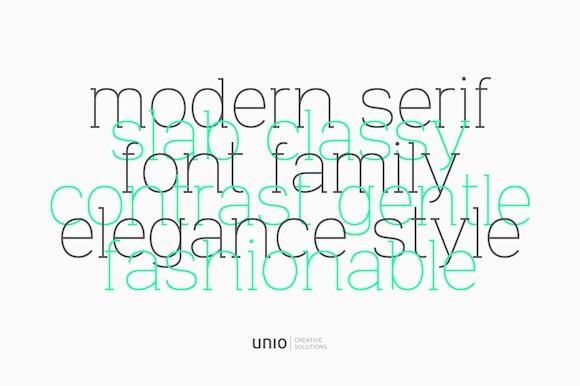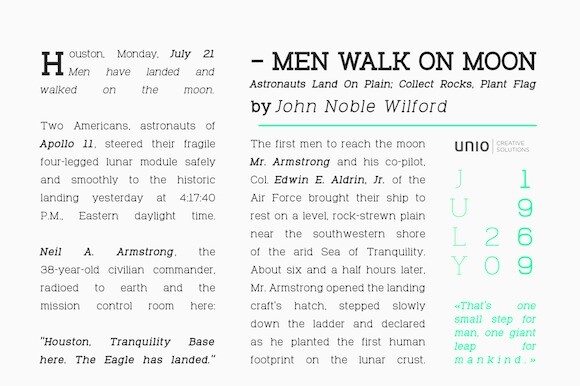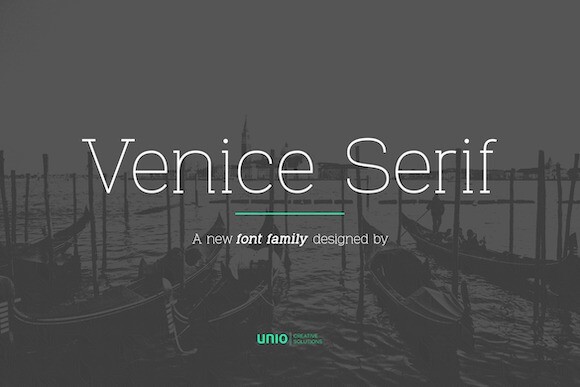
Venice Family Font
Venice is a modern and functional serif font family. This font family’s sleek structure provides strong personality while still keeping readability high.